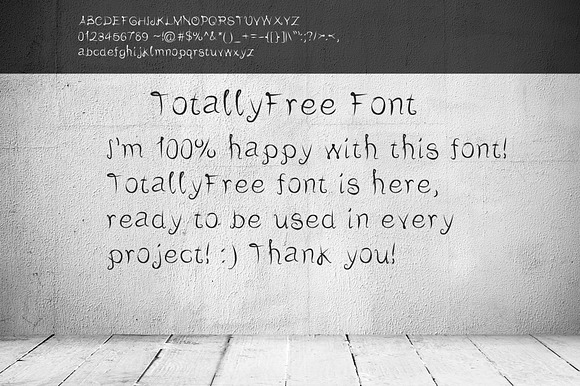
TotallyFree Semi-script font
Hello, this is a free hand, semi-script font. You will get what you see on the image. Only Regular Type, format .otf. Use it in any of your projects. Thank you!
Why TotallyFree Semi-script font is worth a look
TotallyFree Semi-script font by Nick Novell fits naturally into Branding, posters, packaging, typography.